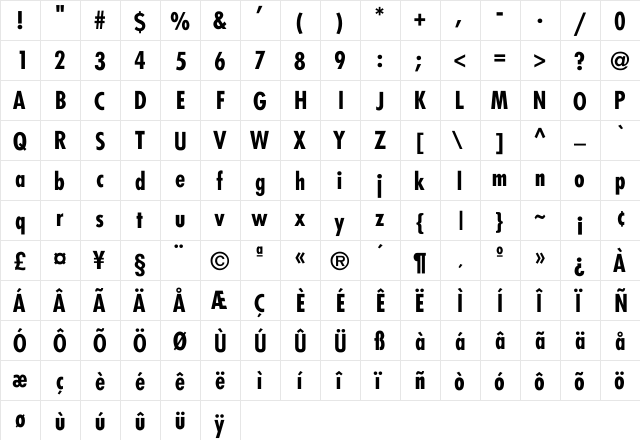
Silverleaf Heavy Cond Regular
Design Context for Silverleaf Heavy Cond Typeface
Silverleaf Heavy Cond offers clean, dependable letterforms without strong stylistic allegiance, making it a practical choice for designers who need flexibility. The condensed width makes it efficient for tight spaces without sacrificing legibility.